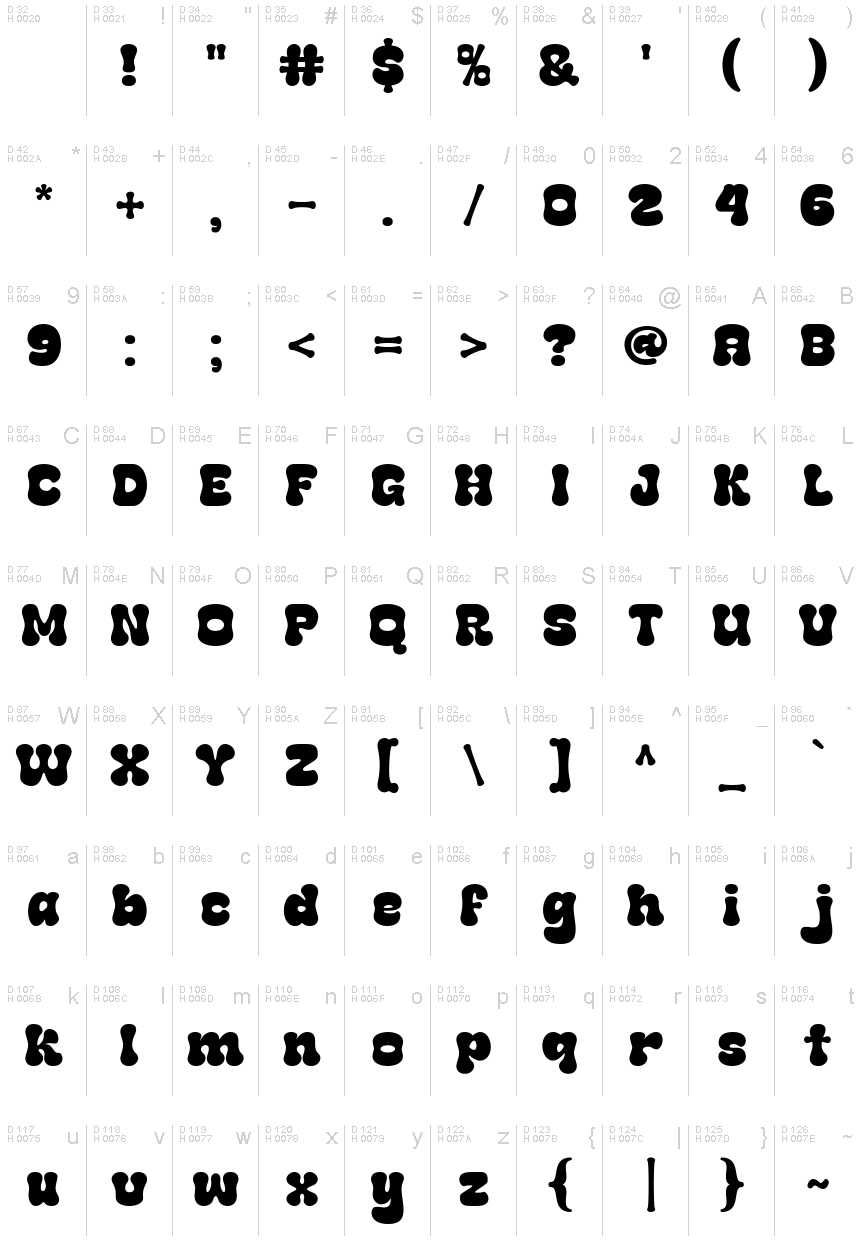
Super Matcha
Super Matcha is a bold, groovy font crafted by designer fsuarez913. This funky typeface effortlessly blends the boldness of a classic 70s aesthetic with a smooth, retro charm. Featuring a distinctive personality, Super Matcha commands attention with its dynamic curves and eye-catching letterforms, evoking a sense of timeless appeal and vintage flair.
This versatile font lends itself beautifully to a variety of design projects, from vibrant posters and packaging to captivating branding elements. Its retro-inspired aesthetic makes it an excellent choice for adding a touch of nostalgic appeal to your design work, whether you're creating dynamic event flyers, crafting engaging social media visuals, or designing striking product labels.